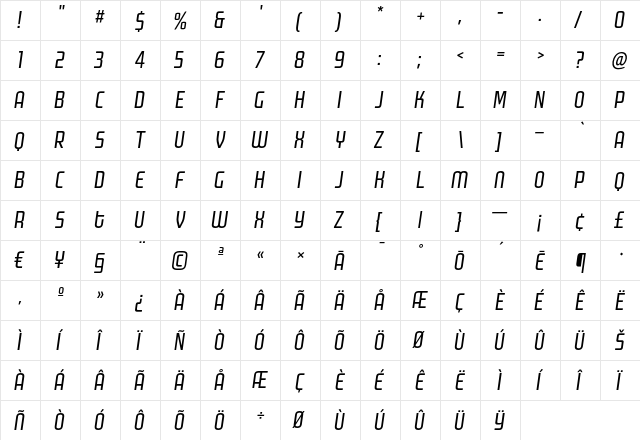
MorganPoster Italic
Design Context for MorganPoster Typeface
MorganPoster is a composed and adaptable typeface that performs quietly and consistently across a wide range of design contexts. The slanted form adds forward momentum and visual energy.
Pro Tip: Use MorganPoster for emphasis, pull quotes, and subheadings where its slanted energy can add rhythm to the layout.